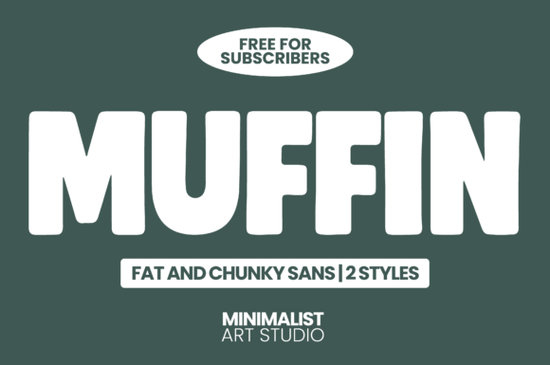
Looking for a bold, eye-catching font that adds personality without sacrificing clarity? Muffin Font is a standout choice for anyone working on logos, social media graphics, packaging, or branding projects. Designed with clean lines and chunky proportions, it delivers impact while staying readable perfect for both digital and print use.
What makes Muffin Font stand out?
Unlike many heavy sans serif fonts that can feel overwhelming, Muffin balances visual weight with simplicity. Its rounded edges and geometric structure give it a friendly yet modern look. Whether you're designing a t-shirt label, a poster, or a brand identity, this font holds its own at any size.
It’s especially useful when you want your text to grab attention quickly like in a headline, product tagline, or social media post. The two available styles let you switch between a more solid, impactful version and a slightly lighter variant, giving you flexibility without needing extra files.
Why designers are choosing Muffin Font
- Two styles, one download: Choose the version that fits your project’s mood whether it’s ultra-bold or just slightly softer.
- Great readability: Even at small sizes, the letters stay clear and distinct, which matters for things like packaging labels or app text.
You’ll also appreciate how well it fits into different design aesthetics. It works as a retro-modern twist on vintage posters, a playful accent in editorial layouts, or a strong foundation for minimalist branding. It’s not just a font it’s a tool that helps your message land clearly and memorably.
Where can you use Muffin Font?
This font shines in a variety of real-world applications:
- Logos & brand identities: Give your business a memorable look with a bold, unique typeface.
- Social media content: Make posts pop with headlines that stand out in crowded feeds.
- Packaging & merchandise: Ideal for T-shirts, mugs, tote bags, and stickers where impact matters.
- Posters & flyers: Perfect for events, promotions, or art prints where you need instant attention.
It’s also great for print-on-demand sellers who want consistent, professional results without overcomplicating their workflow.
How does it compare to similar fonts?
If you’ve used other fat sans serifs like Nura, you’ll notice Muffin leans more toward minimalism. It avoids overly decorative details while still feeling energetic. Compared to some blocky fonts that can look dated, Muffin feels fresh and current ideal for modern branding.
And if you're already using other bold fonts, consider pairing Muffin with something simpler like a clean serif or thin sans for contrast and balance. This combo often creates stronger visual hierarchy in designs.
Final thoughts: Is Muffin Font right for you?
If you value clarity, versatility, and a touch of fun in your typography, yes this font is worth adding to your library. It’s not flashy for flashiness’ sake; instead, it supports your message with confidence and charm.
Whether you're a small business owner, a craft hobbyist, or a designer building a portfolio, Muffin Font gives you a reliable, stylish option that works across many projects.